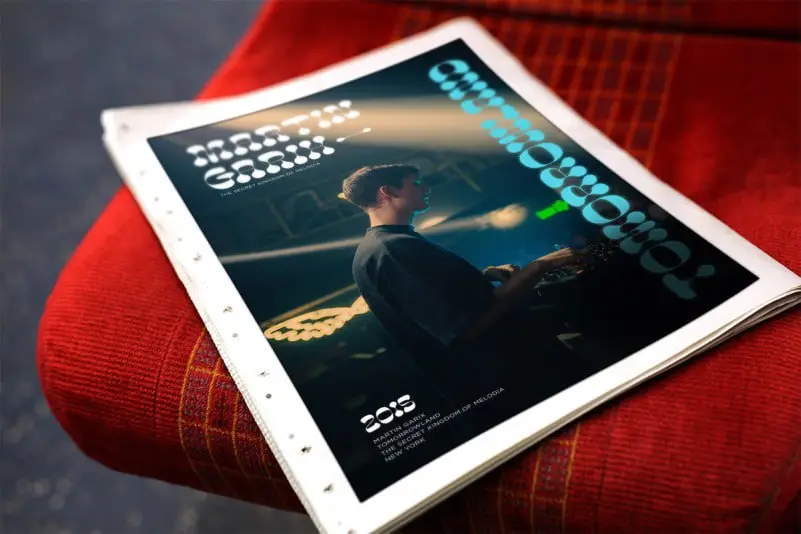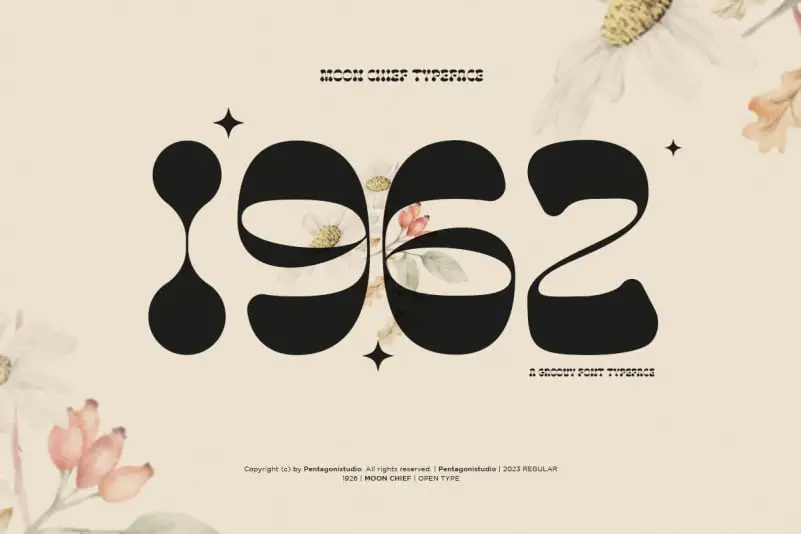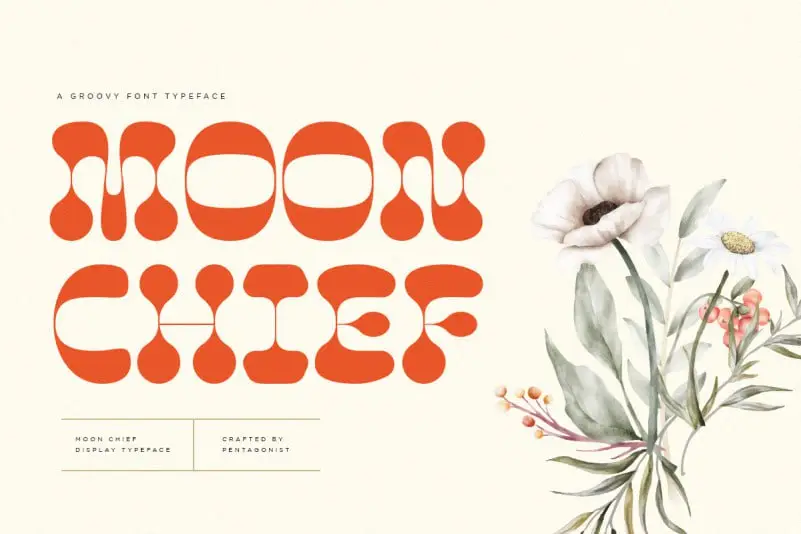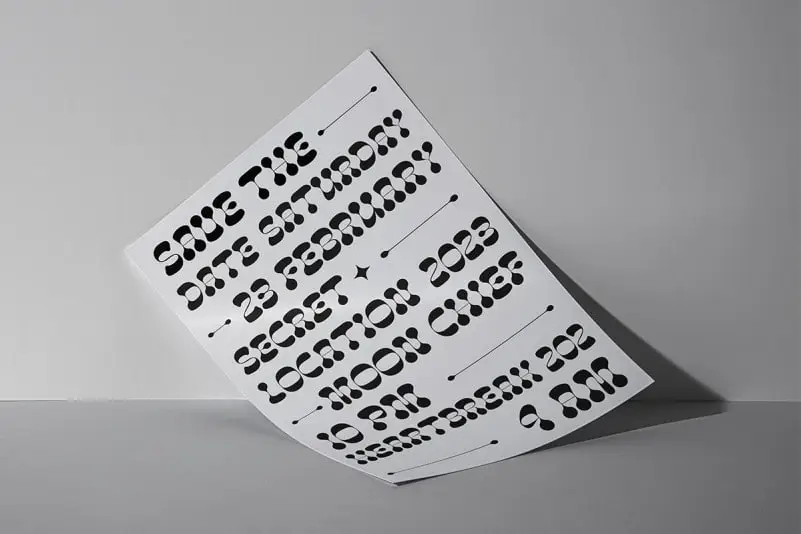
Moon Chief Groovy Display Font By Pentagonistudio
Introducing the Moon Chief Groovy Display Font by Pentagonistudio, a unique typeface that captures the essence of retro design with a modern twist. This font features a playful and bold style, making it perfect for eye-catching headlines, logos, and branding projects.
• Ideal for branding and logos that require a distinctive look.
• Great for posters, flyers, and any print materials that need a retro vibe.
• Can be used effectively in UI design for a fun and engaging user experience.